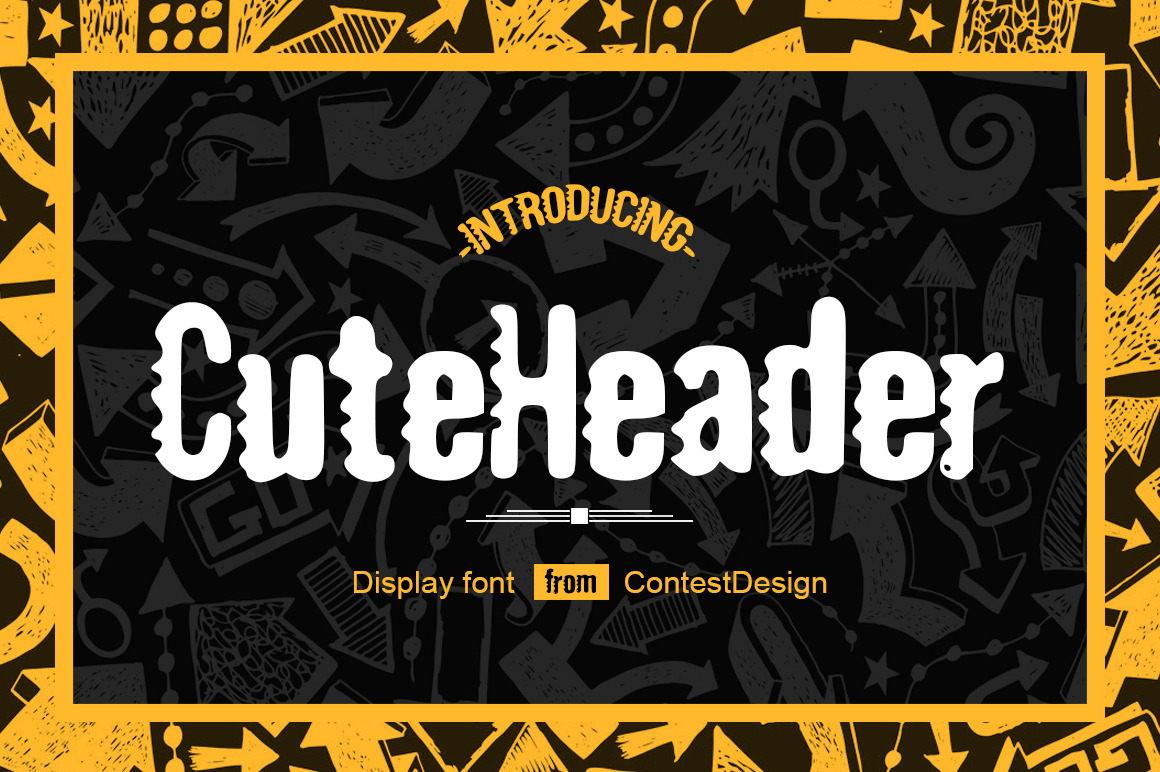
Cute Header Display Font
Introducing CuteHeader Font !
Thanks for checking out CuteHeader Display font! A fabulously fun yet elegant script font with tons of energy, allowing you to create beautiful hand-made typography in an instant.